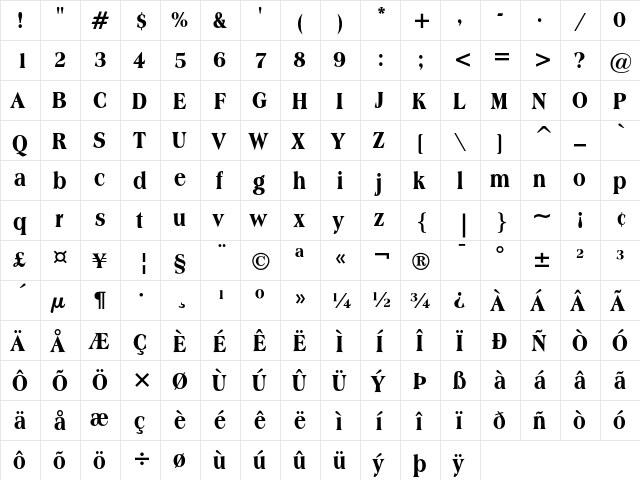
Americana Extra Bold Condensed Font Preview
Americana Extra Bold Condensed
Design Context for Americana Typeface
Americana offers clean, dependable letterforms without strong stylistic allegiance, making it a practical choice for designers who need flexibility. The heavy weight commands attention and anchors typographic hierarchies. The condensed width makes it efficient for tight spaces without sacrificing legibility.